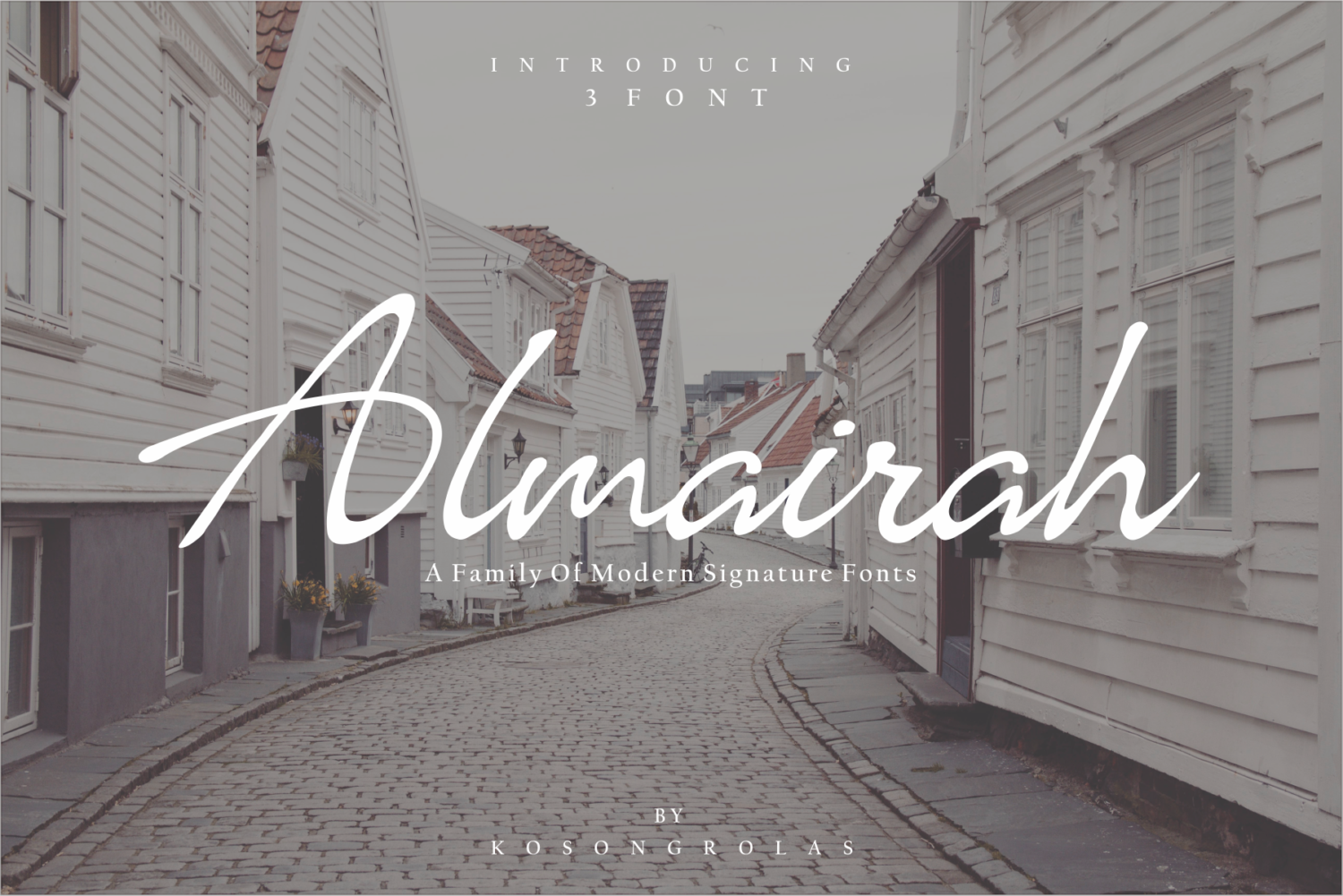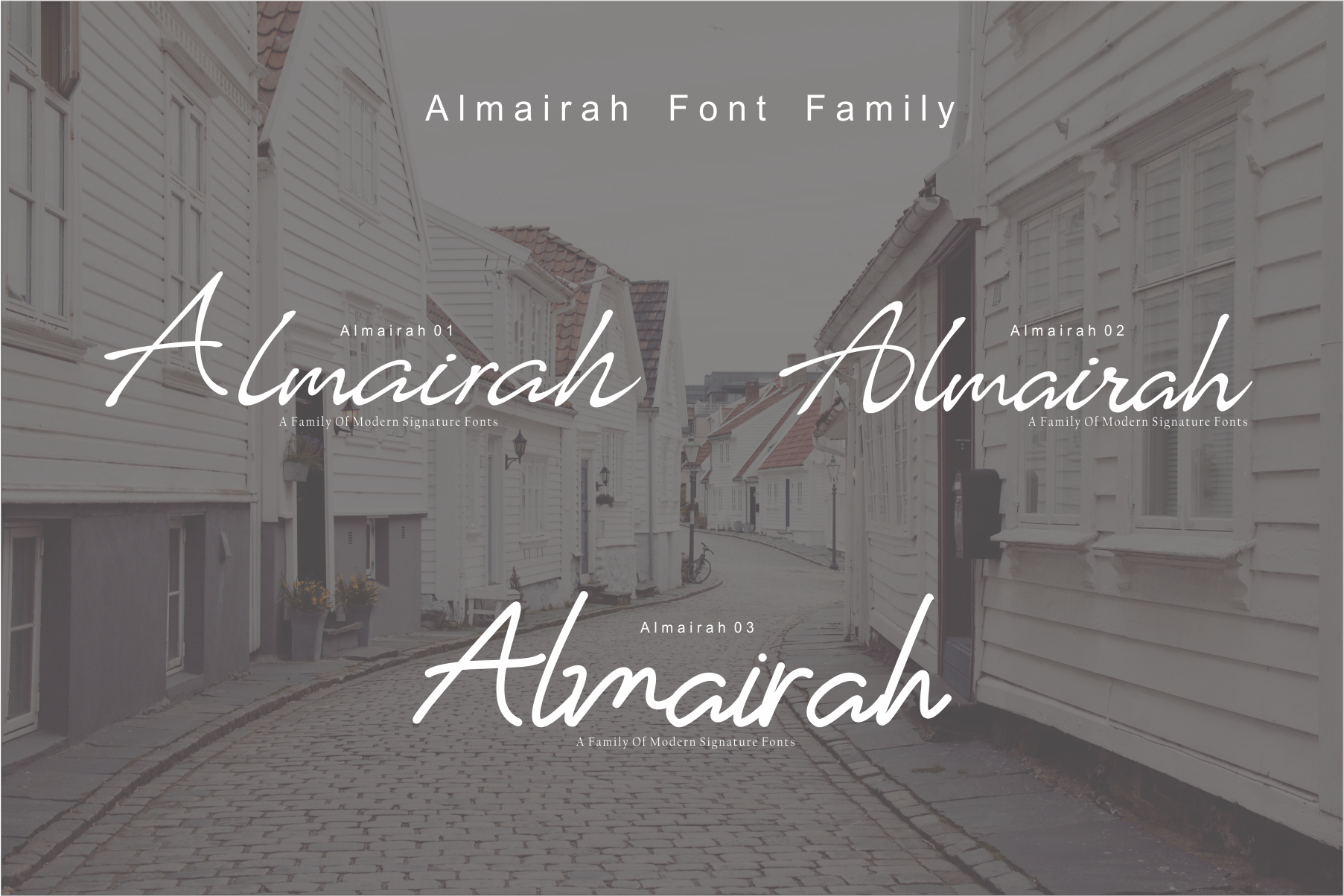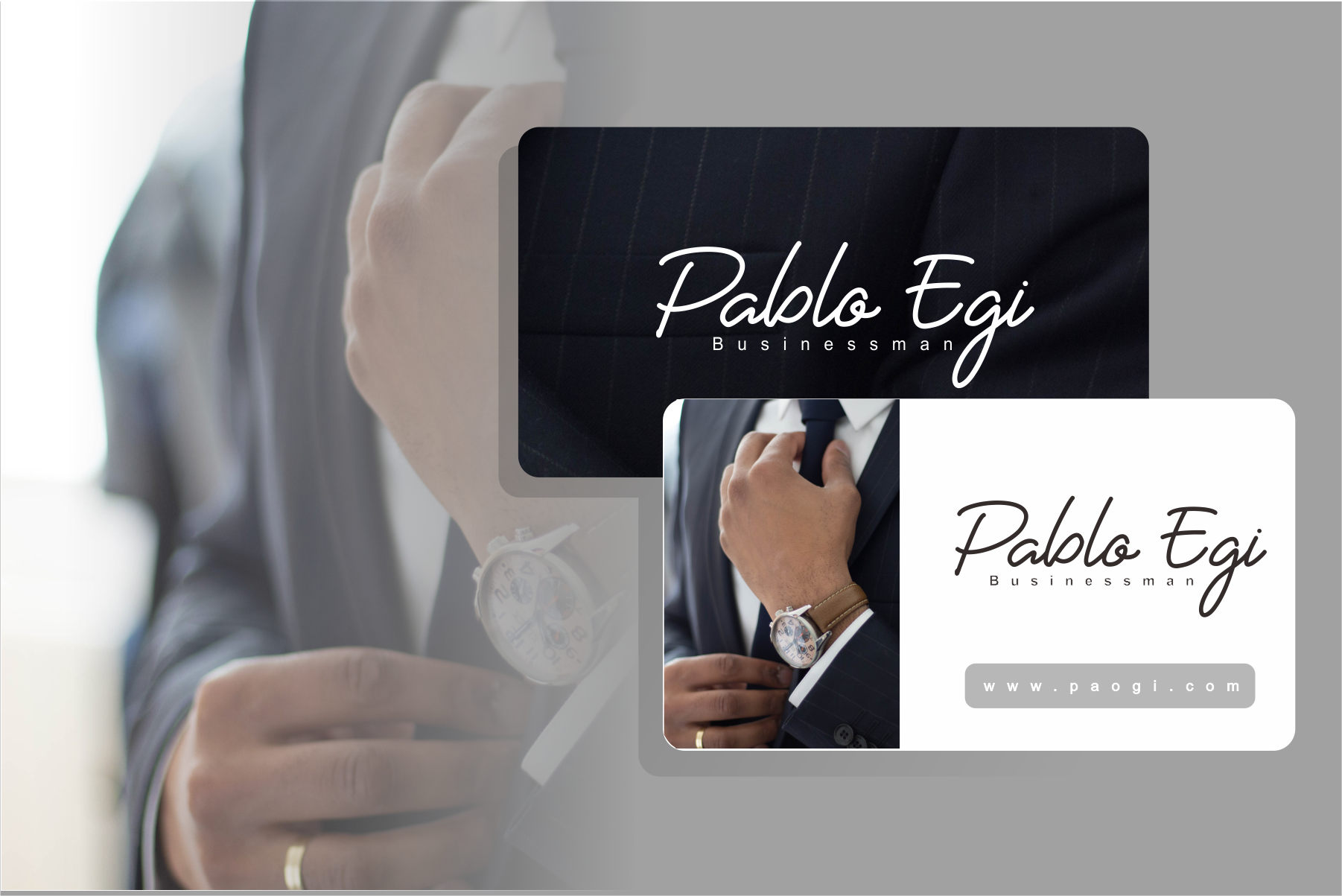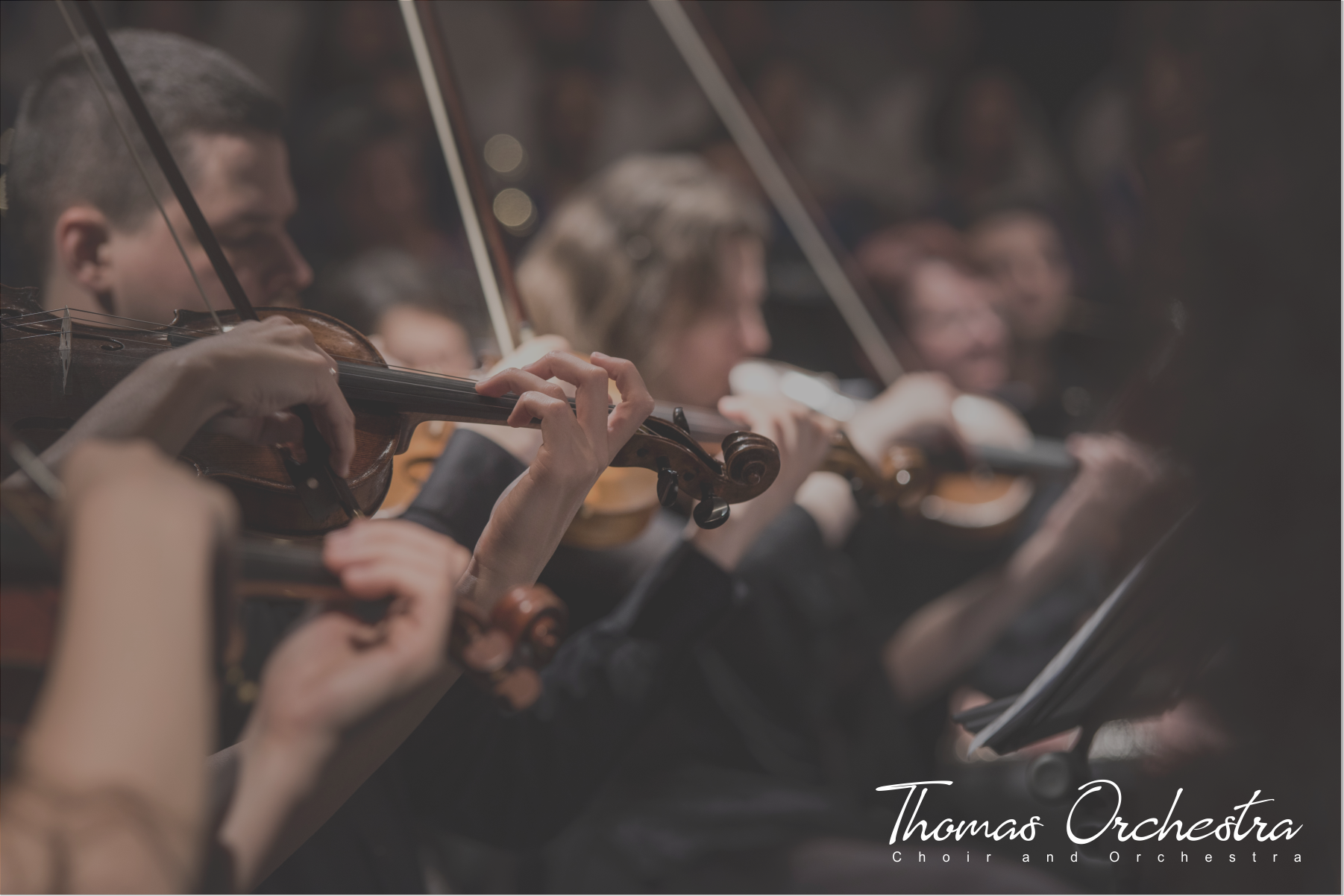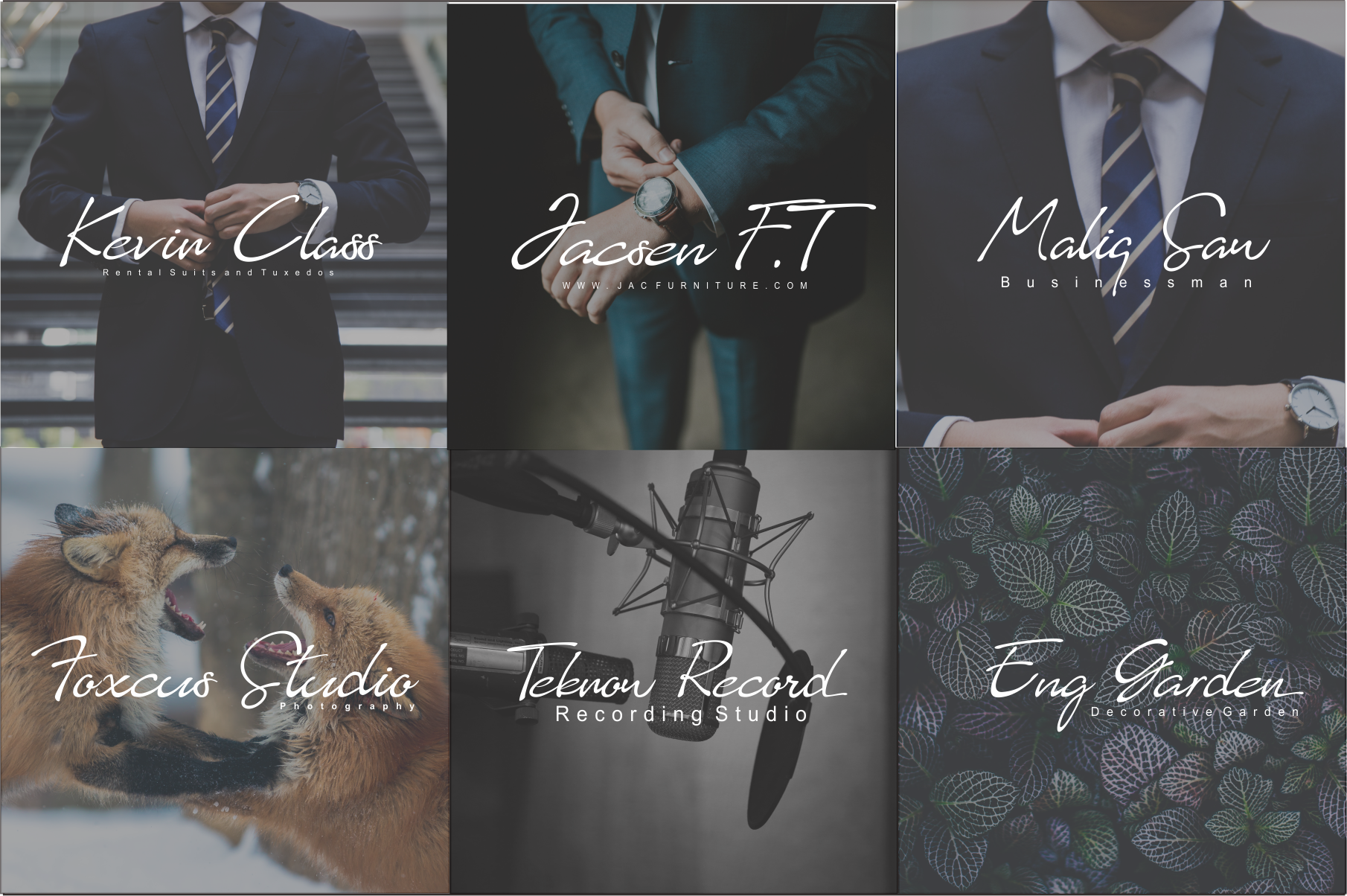
Almairah is a delicate, elegant script font with a handwritten feel, featuring slender strokes and a fluid, cursive style. Its thin weight and graceful letterforms create a refined, artistic look, making it perfect for invitations, branding, and editorial projects that seek a personal and sophisticated touch. This font stands out in creative contexts where elegance and subtlety are key.
Almairah Font
About Almairah Font
| Font family | Almairah Font |
| Release date | 2018-02-28 |
| Designer | Muhammad Romzul Khoir |